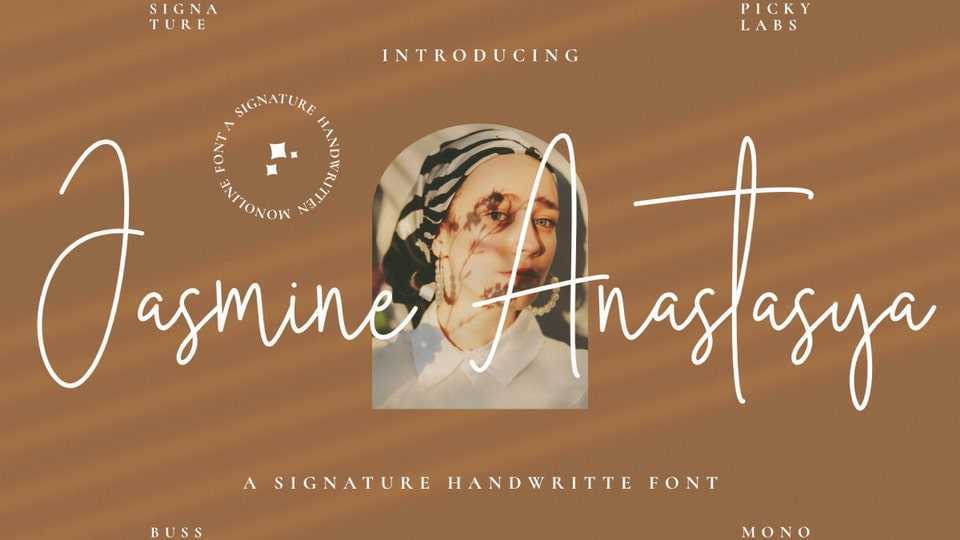
Download Jasmine Anastasya font, a casual, clean, free-flowing, monoline script typeface. Its elegant charm makes Jasmine Anastasya font appear wonderfully down-to-earth, readable, and, ultimately, incredibly versatile.